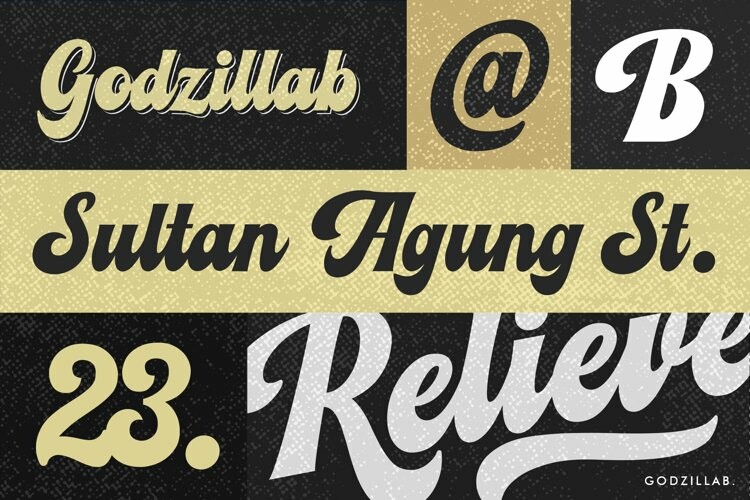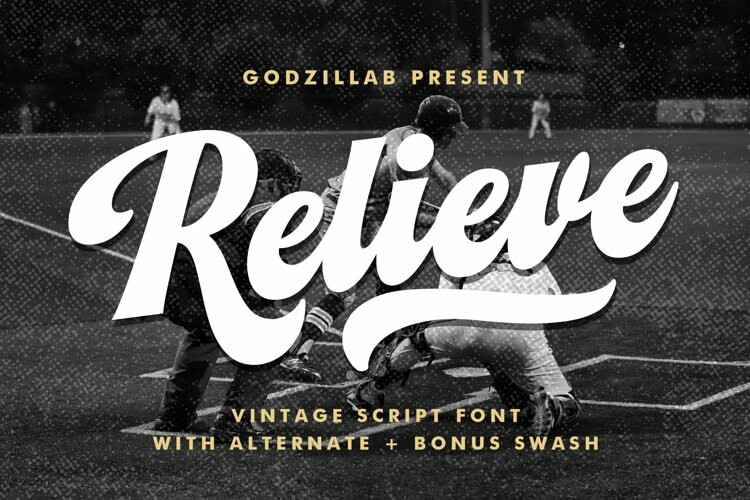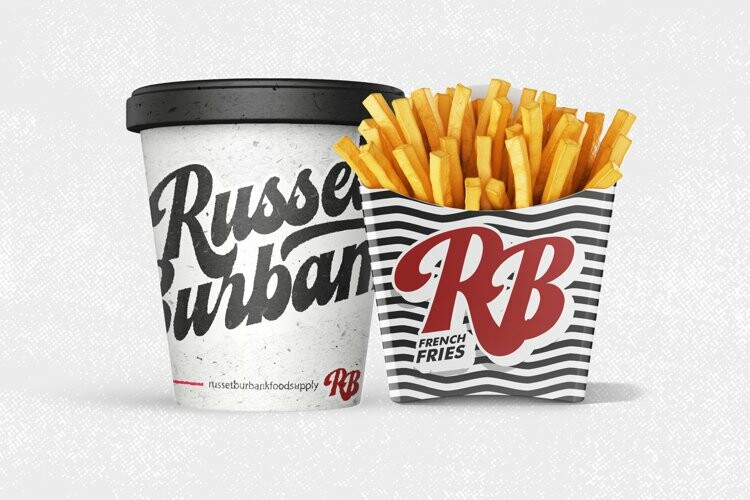
Relieve Font
Relieve FontRelieve font are script fonts that are created with lettering process. It is perfect for logo design, small amount text and print materials . The font includes an uppercase, lowercase alphabet, numbers, common symbols, alternate, swash, and ligature.You want to make a business card or even a brand identity, craft design, clothing design, book title, cover book, or any purpose to make your art / design project look modern and feel original ? Relieve the key.